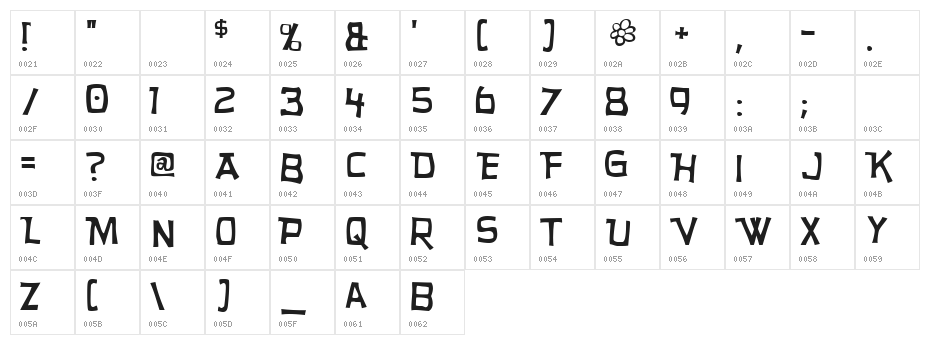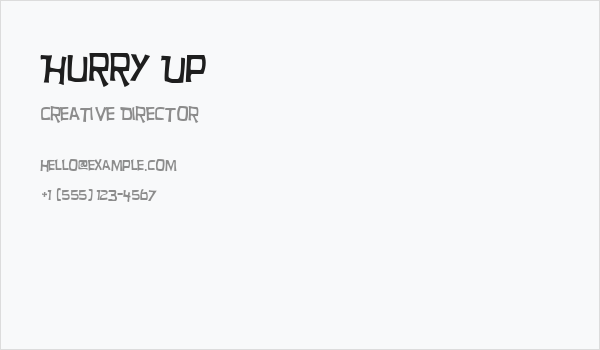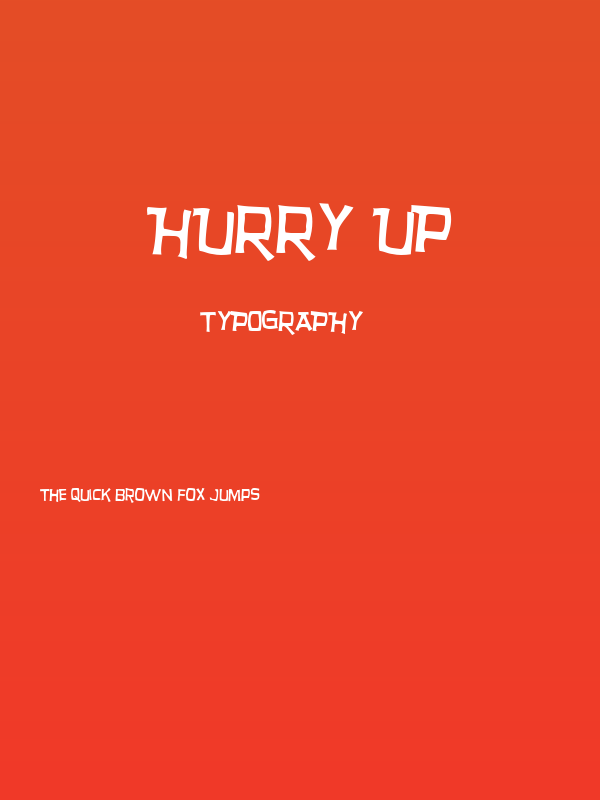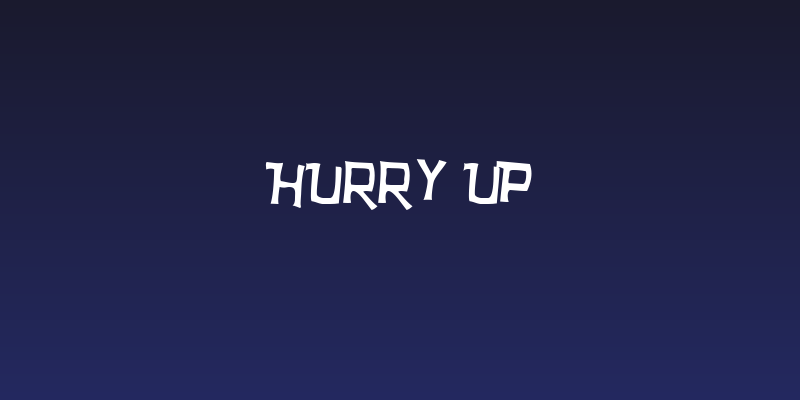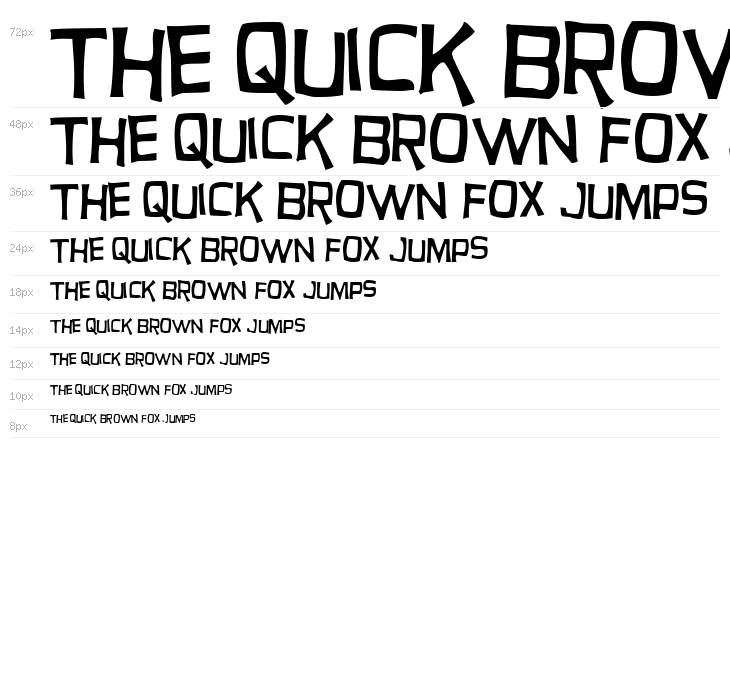
Hurry Up Font
Hurry Up Description
This font features a playful and dynamic style with a hand-drawn appearance. The characters are bold and slightly irregular, giving them a whimsical and energetic feel. The uppercase and lowercase letters maintain a consistent style, with exaggerated curves and angles that add to the font's unique charm. The numbers and special characters follow the same design principles, ensuring a cohesive look across all elements. This font's distinct personality makes it stand out, making it ideal for creative and informal projects.
| Proposed Projects | Ideal for children's books, comic strips, playful branding, and creative posters. |